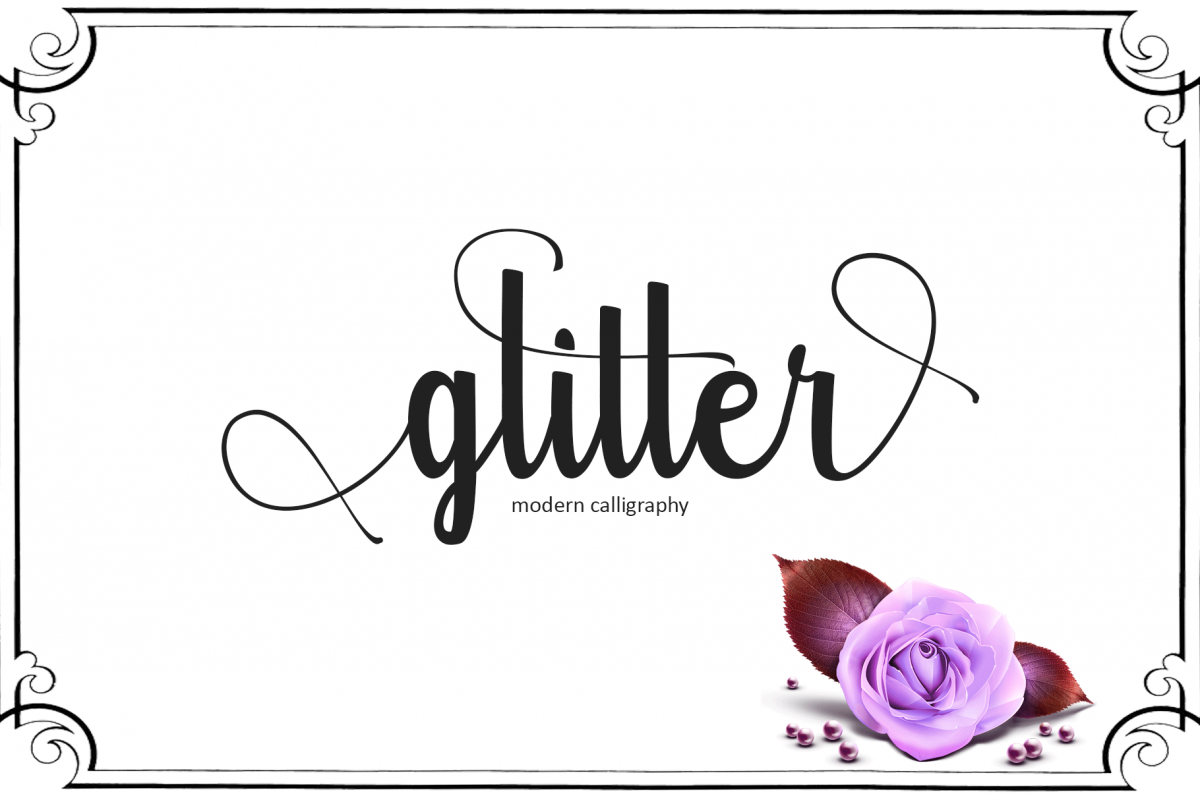
Glitter
Typography plays a big role in managing moods in your design, so you don't have to skimp on choosing quality typography when you have the opportunity.
This Glitter Script comes from myself, this is a beautiful script font with endless charm.
Glitter Script
Glitter Script is romantic typography with nearly 310 glyphs and various alternative characters.
Like a good OpenType font, it also includes various styles and alternative binders and more.
This bold and elegant vintage script is great for things like logos, wedding invitations, signage and posters.